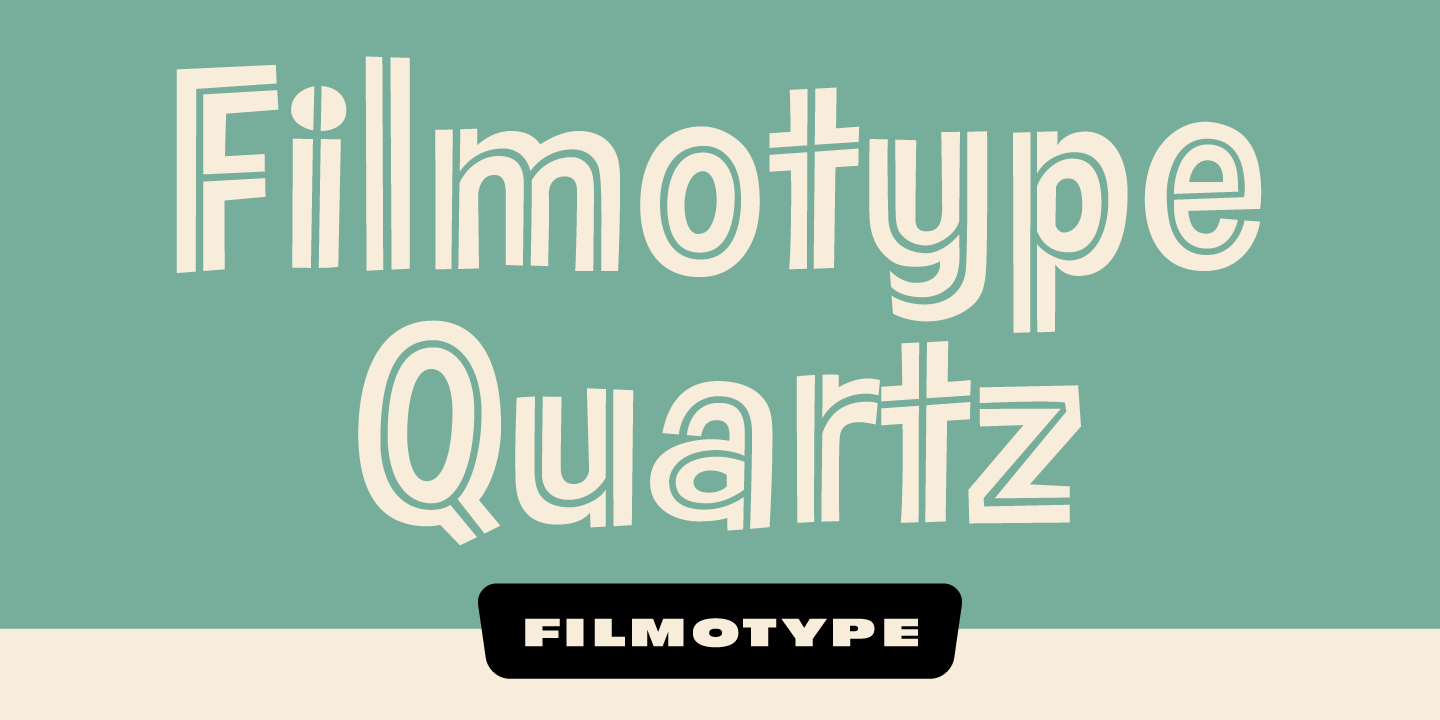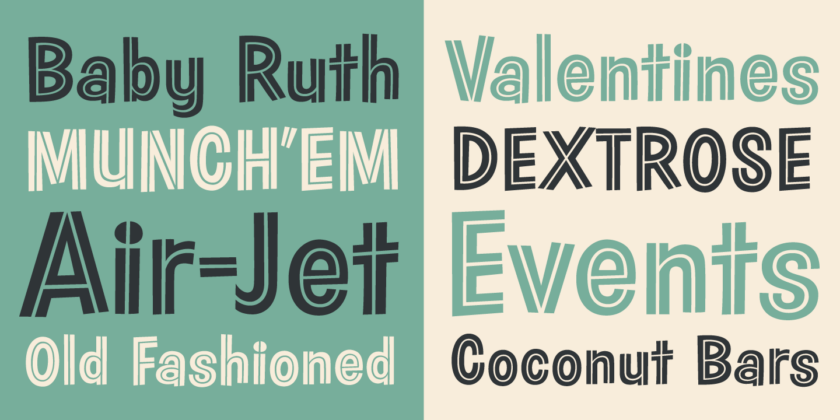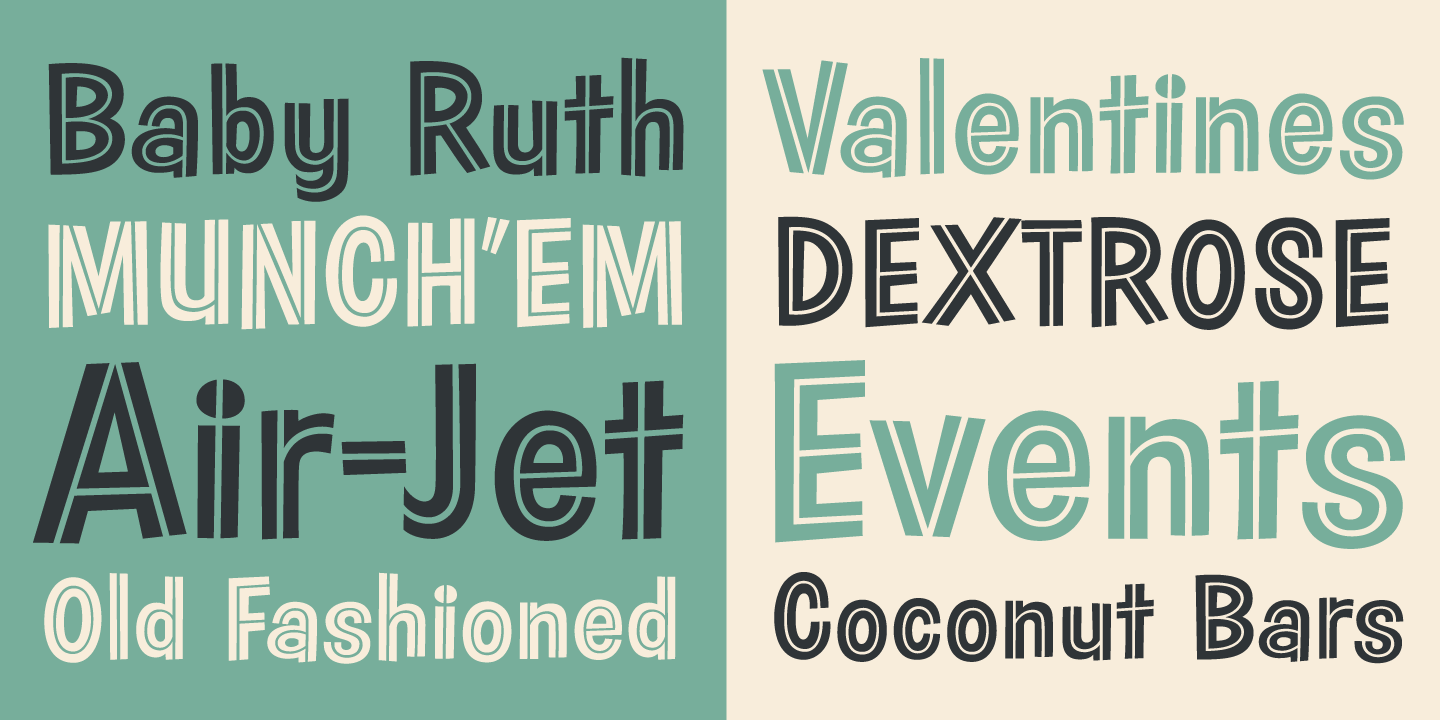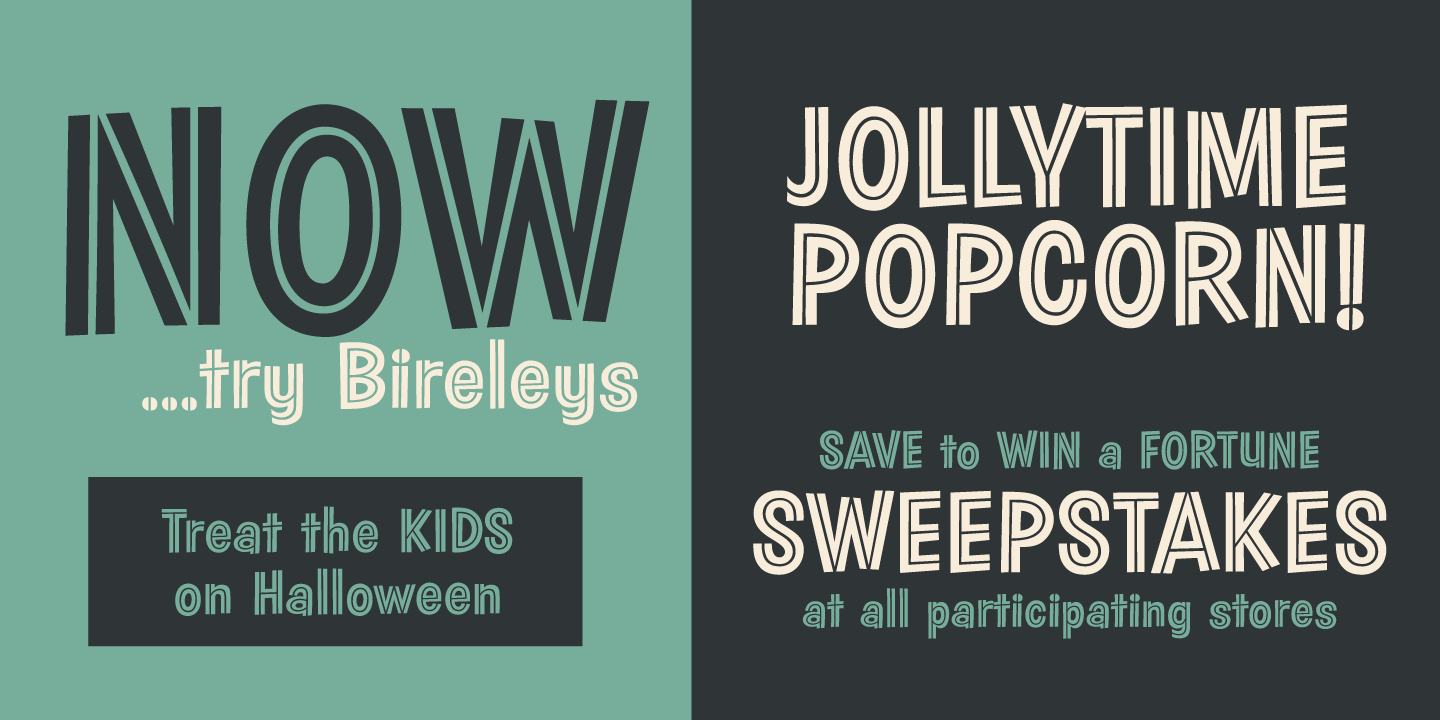
Filmotype Quartz
As the Filmotype library grew throughout the 1960s, Filmotype Quartz was added to refresh and expand its novelty typeface styles. This playful mod-style sans serif has a wonderful inline effect yet remains readable even at smaller sizes. Remastered and…